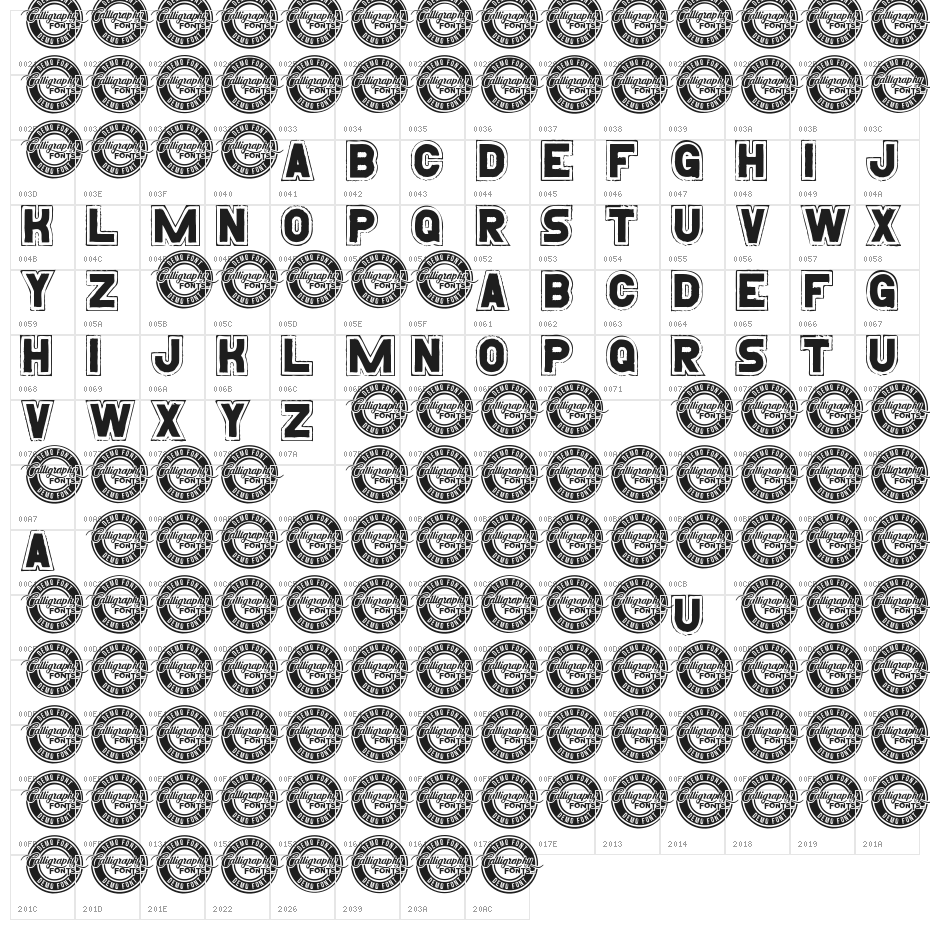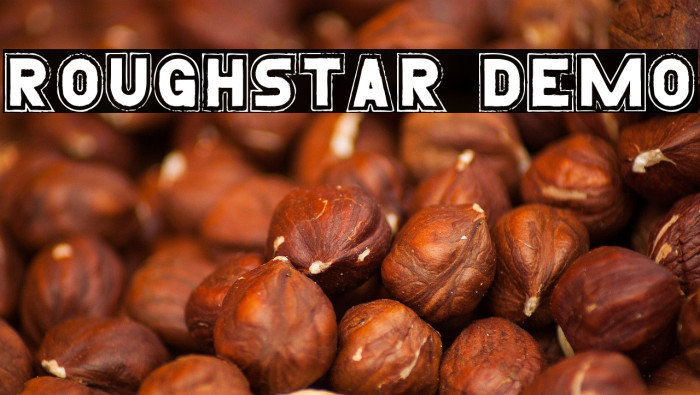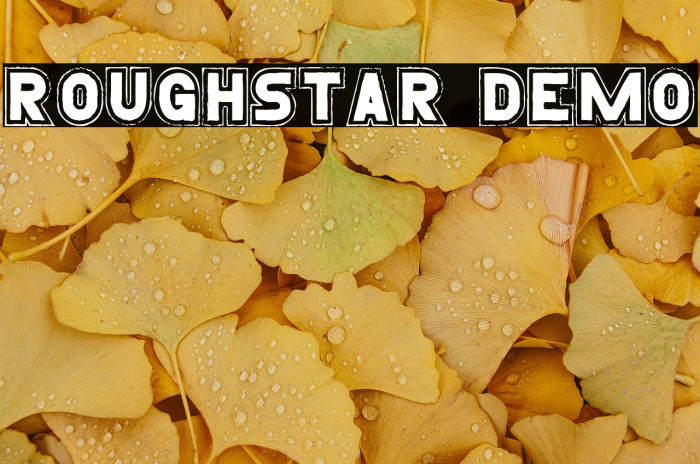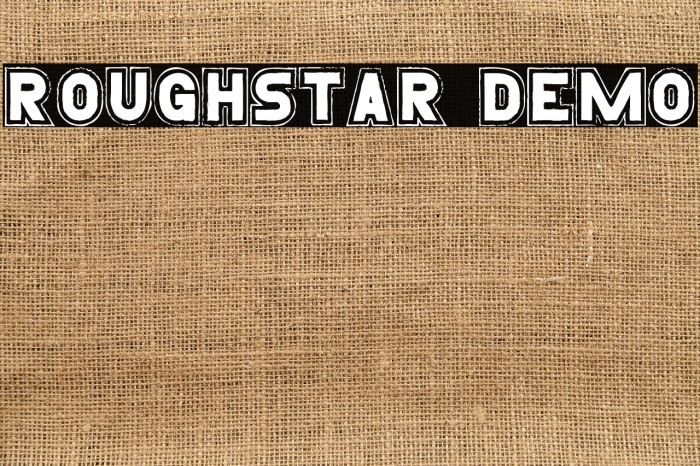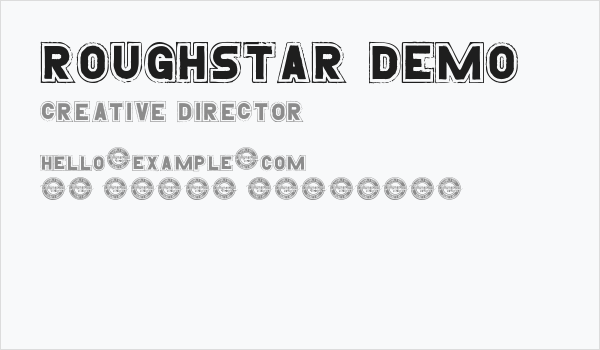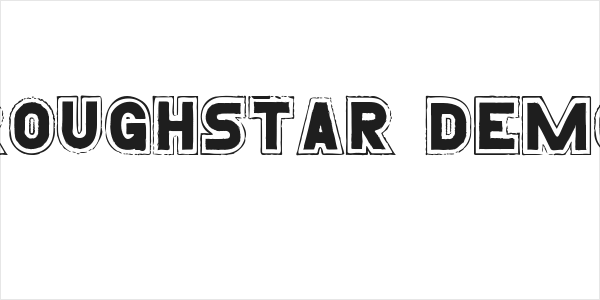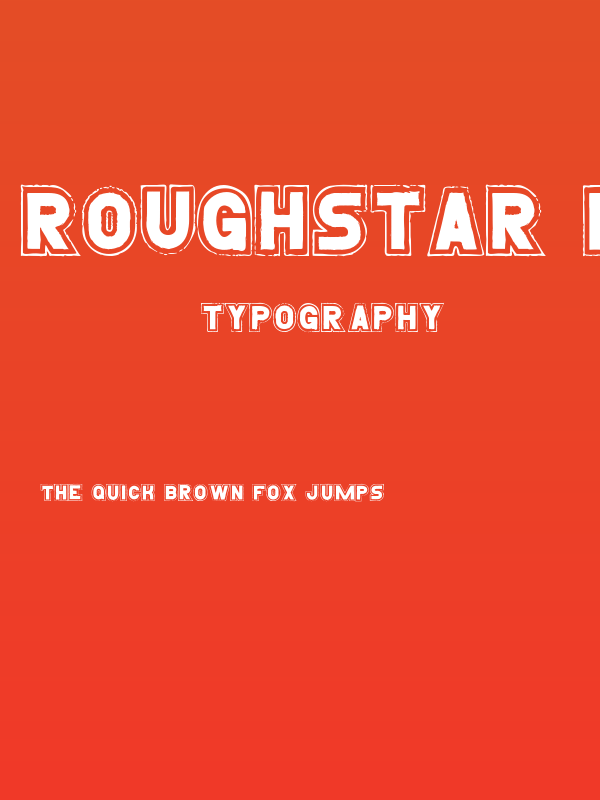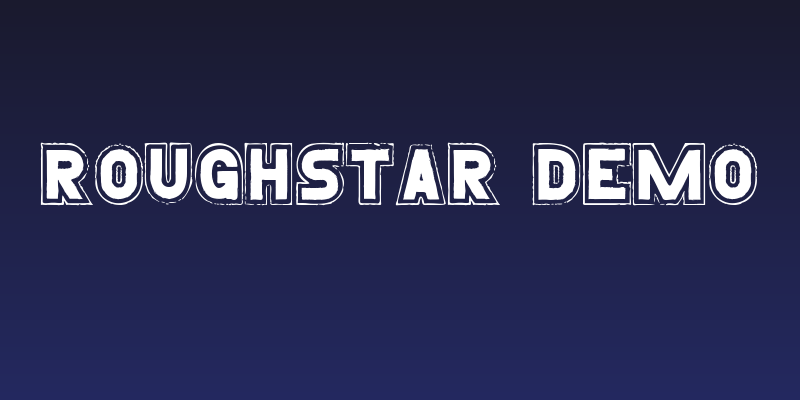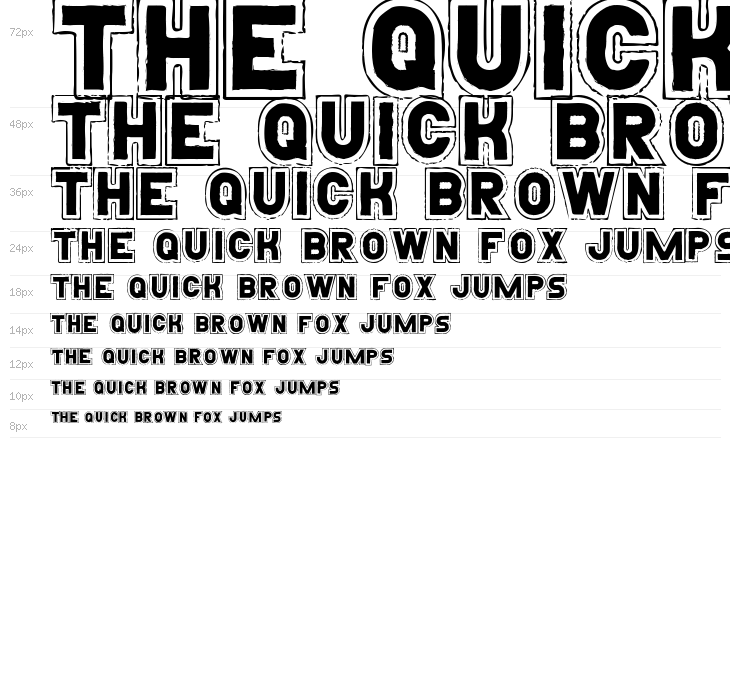
Roughstar Demo Font
Roughstar Demo Description
This font features a bold, rugged style with a distressed texture that gives it a vintage and worn appearance. The uppercase letters are designed with a thick, blocky structure, and the edges are intentionally roughened to create a hand-crafted look. The font's boldness is complemented by its high contrast, with thick strokes and thin gaps adding to its visual impact. The characters are evenly spaced, providing a balanced and cohesive appearance. This font is ideal for projects that require a strong, eye-catching display typeface with a touch of nostalgia.
| Proposed Projects | Ideal for posters, logos, branding, and any design needing a strong, vintage aesthetic. |